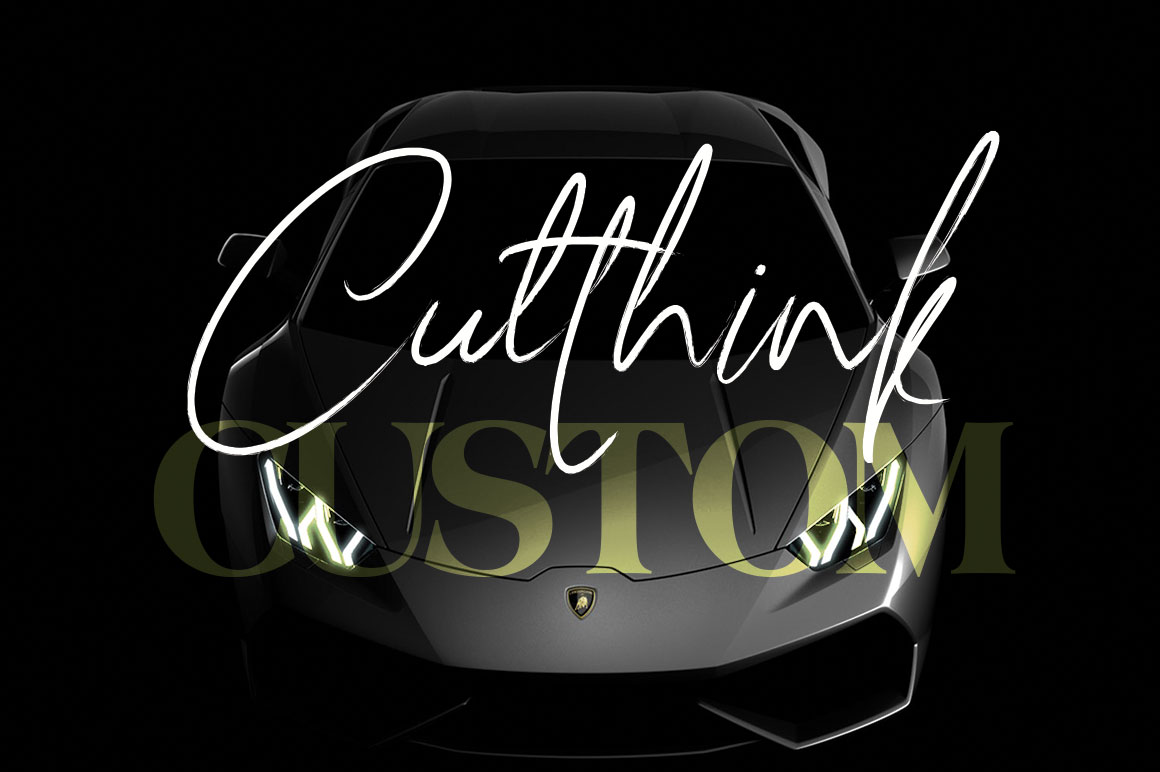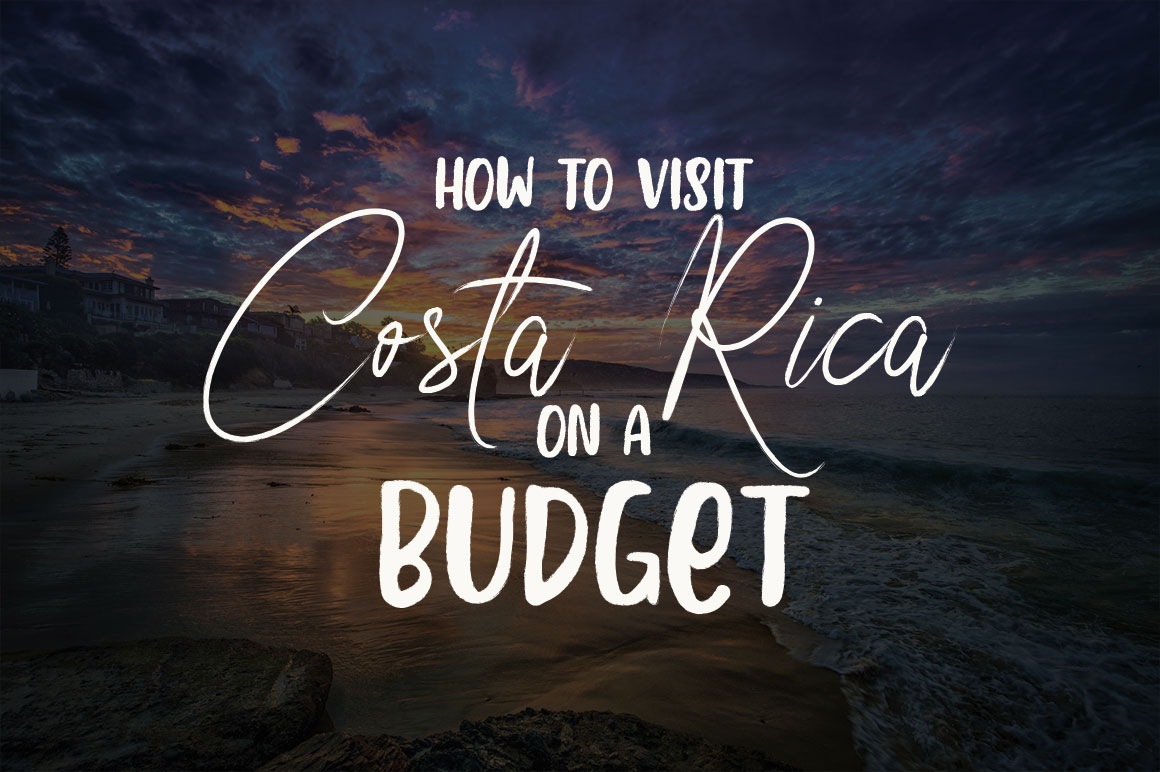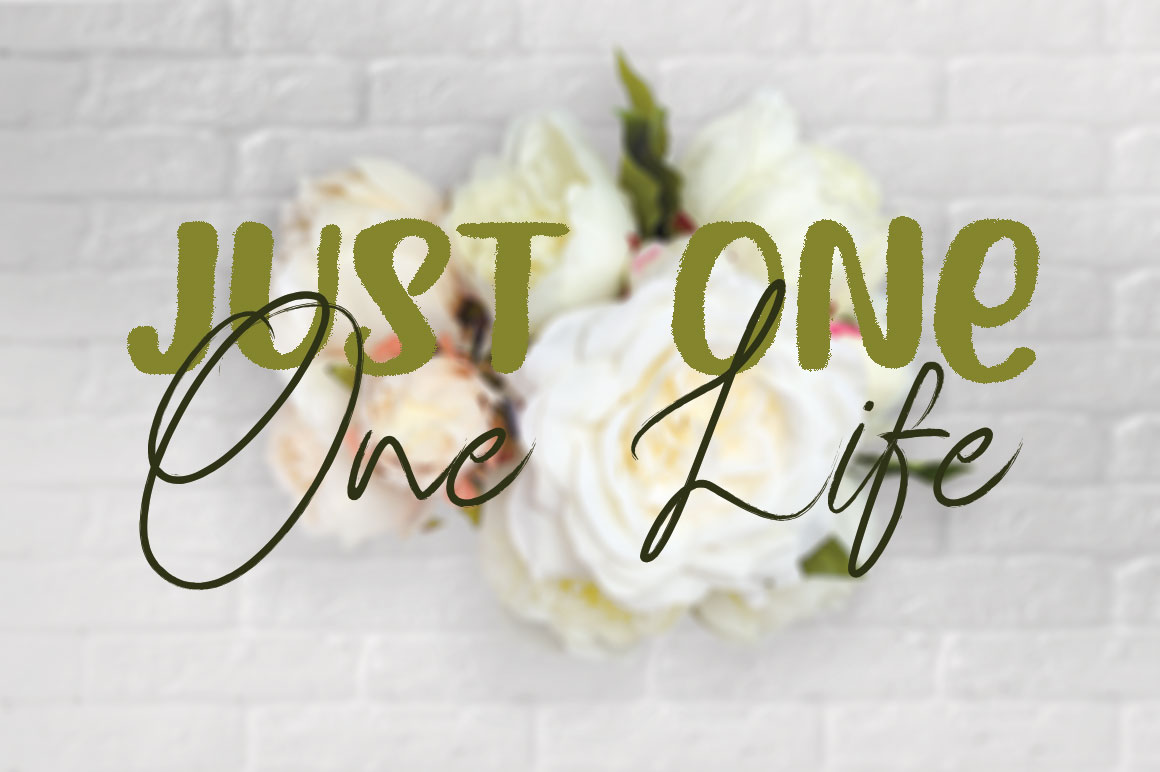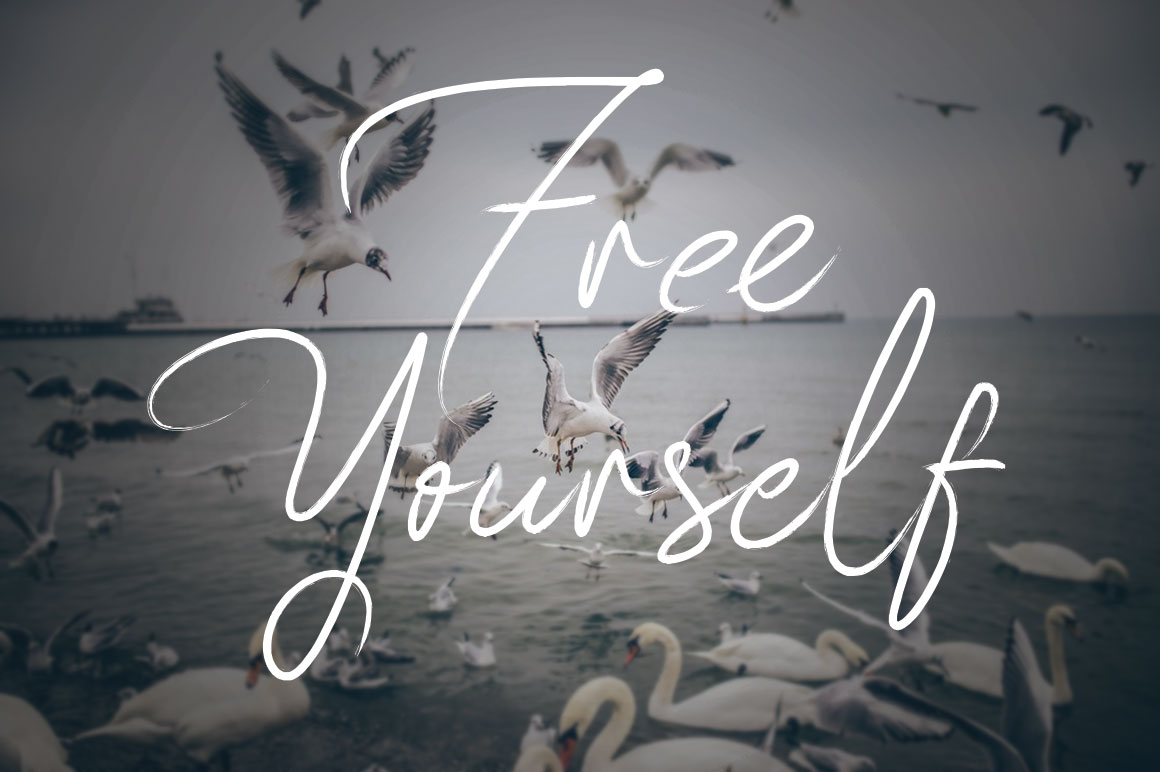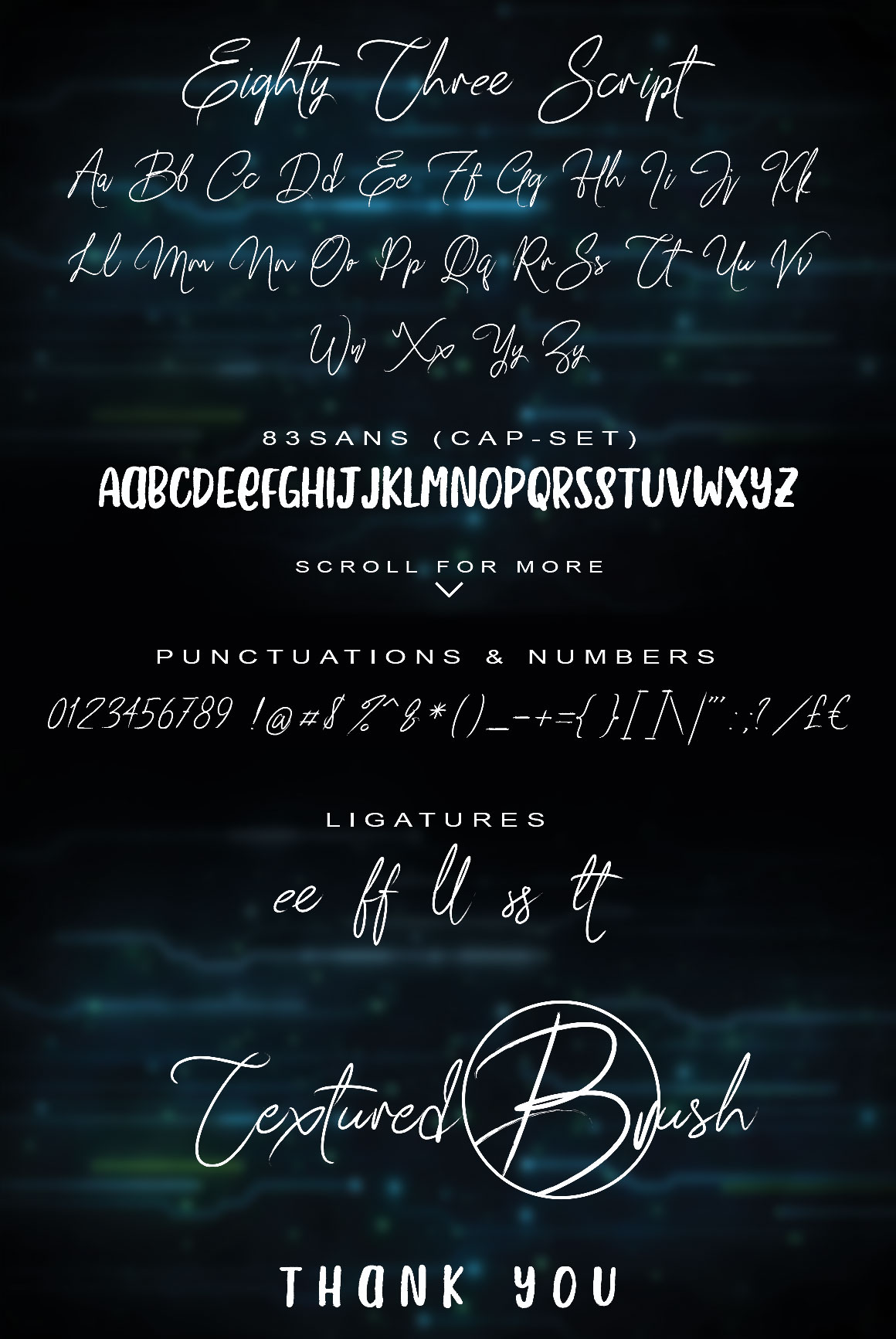
83 Script Font
About 83 Script Font
83 Script is a clean, classy signature style font duo.
It’s fluid and flashy but has a very natural vibe. It’s suitable for many different uses and includes 2 fonts: 83 Script & 83 Sans.